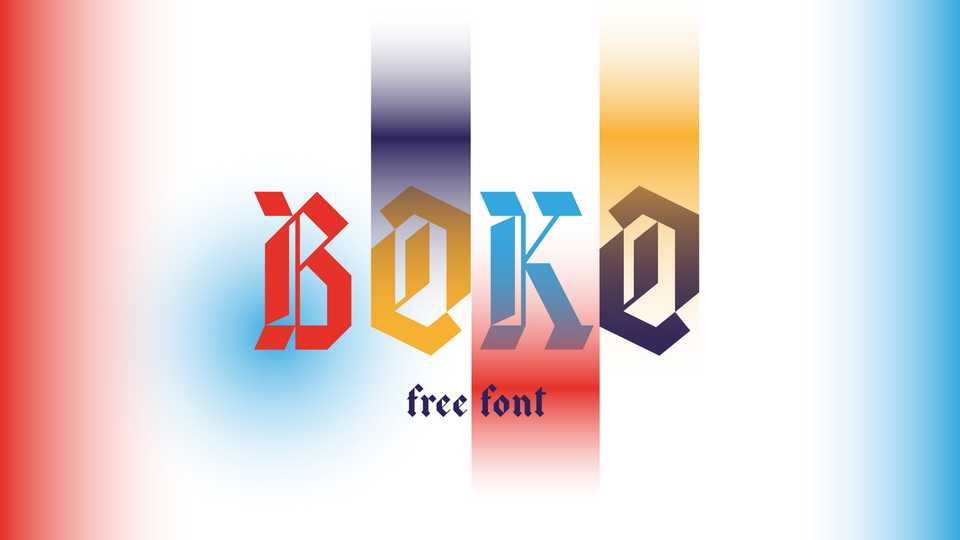
Download Boko font, a blackletter font with a modern geometric and edgy design. Bolo font will be the perfect choice for distinctive headlines and brand identities for music, movies, video games and more.
Designer: Joël Maillot